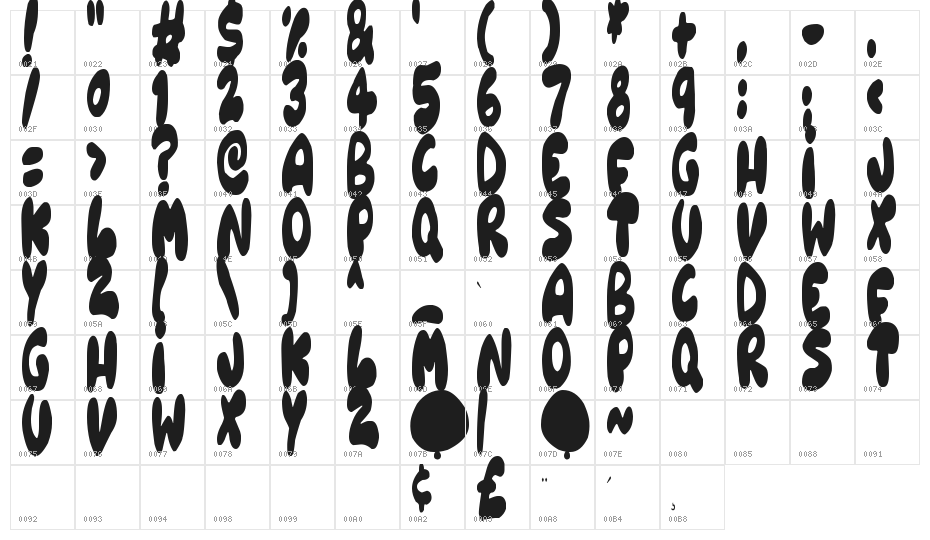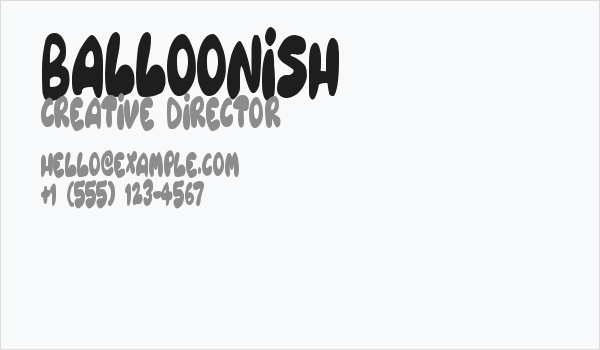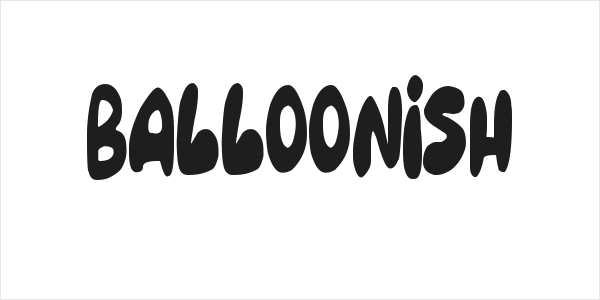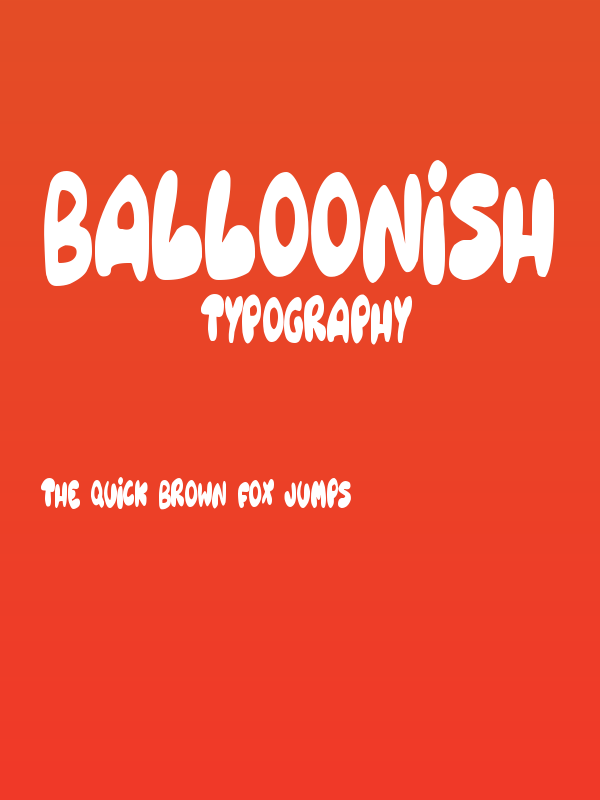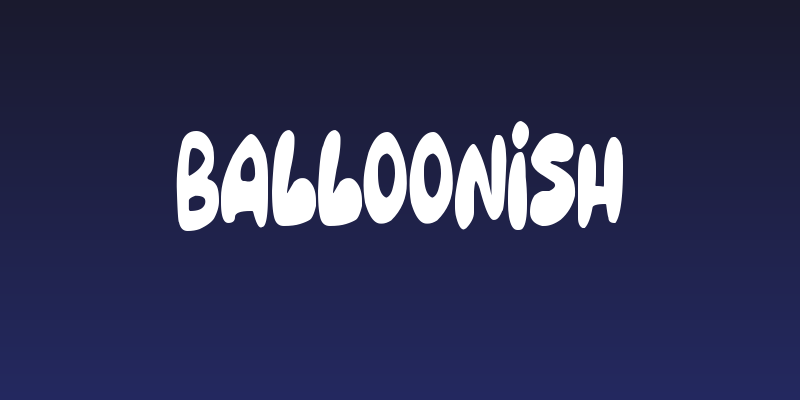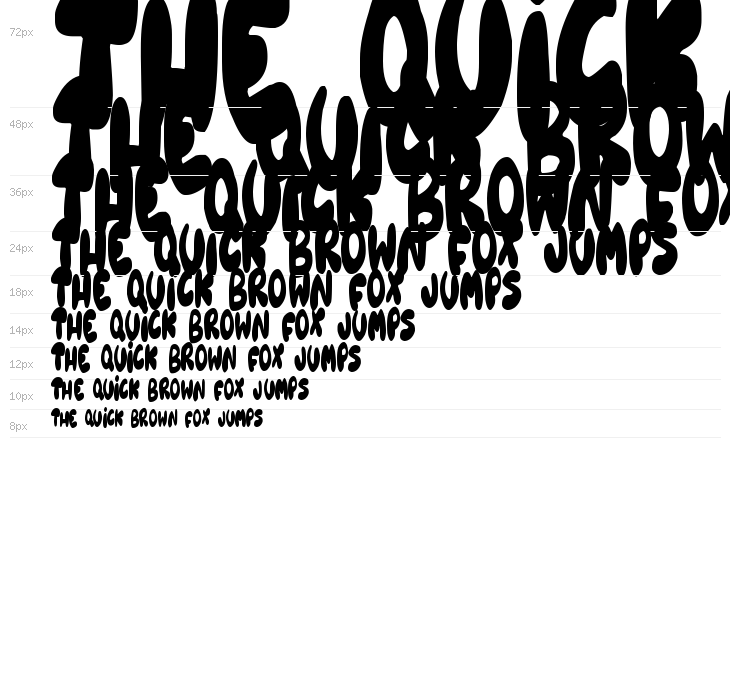
Balloonish Font
Balloonish Description
This playful and bold font features a balloon-like appearance with rounded, inflated characters that convey a sense of fun and whimsy. The letters are thick and have a uniform stroke width, giving them a consistent and cohesive look. The uppercase and lowercase letters maintain a similar style, with the lowercase being slightly smaller in size. The numbers and special characters follow the same design principles, ensuring a harmonious overall appearance. This font's unique style makes it stand out, making it ideal for projects that require a touch of creativity and lightheartedness.
| Proposed Projects | Ideal for children's books, party invitations, playful branding, and any project needing a fun and whimsical touch. |